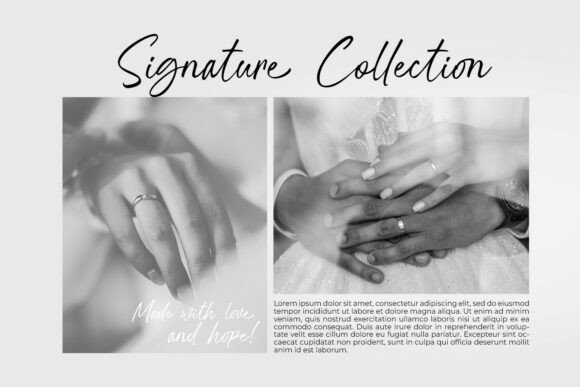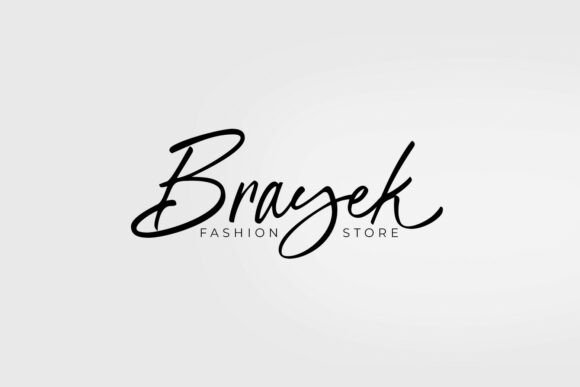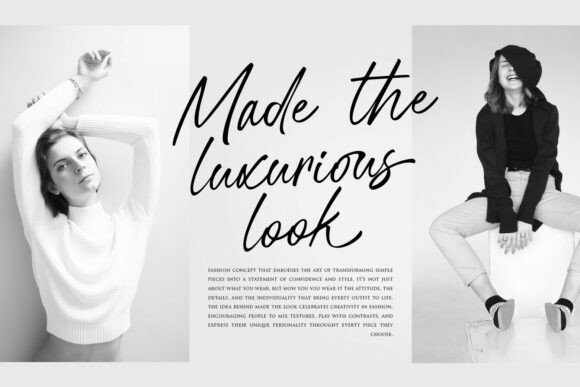
Introduction to Hallrack Font
Imagine you’re working on a creative project, pouring your heart and soul into every detail, and then you stumble upon the perfect font – one that instantly elevates your design and gives it that extra oomph. For designers, finding the right font can be a game-changer, and that’s where the Hallrack Font comes in. This script handwriting font is designed to capture the beauty of real hand-lettering, with a natural brush effect that makes every stroke feel alive and full of personality.
Whether you’re working on a logo, branding, product packaging, or social media post, Hallrack Font adds a personal and artistic touch that instantly stands out. Its flowing connections and dynamic brush texture create a sense of movement and emotion, making your text feel human and memorable. With its high quality design and transparent background, it’s the perfect design resource for any creative project.
Key Features of Hallrack Font
- High-quality, unique font design perfect for creative projects requiring a distinctive look.
- Comes with a transparent background, making it ideal for use on any design resource or template.
- Designed to be highly legible, even at small font sizes, making it perfect for use in various design contexts.
- Unique characteristics include a bold, modern aesthetic and a wide range of font styles to choose from.
Honest Review: Hallrack Font
I recently had the chance to work with the Hallrack Font, and I’m excited to share my thoughts on this design resource.
✨ The Hallrack Font offers a high-quality, modern design that’s perfect for creative projects.
✨ The font has a clean and minimalistic aesthetic, making it easy to use in a variety of design contexts.
⚠️ The Hallrack Font doesn’t have a transparent background option, which can limit its use in certain design situations.
Overall Impression:
Overall, I’m impressed with the Hallrack Font. It’s a great addition to any designer’s toolkit, and its high-quality design makes it a great choice for creative projects. While it has some limitations, I think it’s a solid choice for designers who are looking for a free, modern font.
With its transparent background, the Hallrack Font is perfect for creating visually appealing graphics and designs.
The Hallrack Font is a great design resource for creating high-quality designs and graphics.
The Hallrack Font is a versatile design resource that can be used in a variety of creative projects.
Tips for Getting the Most Out of Hallrack Font
Use the Hallrack Font to create visually appealing titles and headings.
Pair the Hallrack Font with other design elements to create a unique and creative look.
Experiment with different font sizes and colors to customize the Hallrack Font to fit your design needs.
The Hallrack Font is perfect for:
Creating titles and headings for presentations and reports.
Designing graphics and posters for events and marketing campaigns.